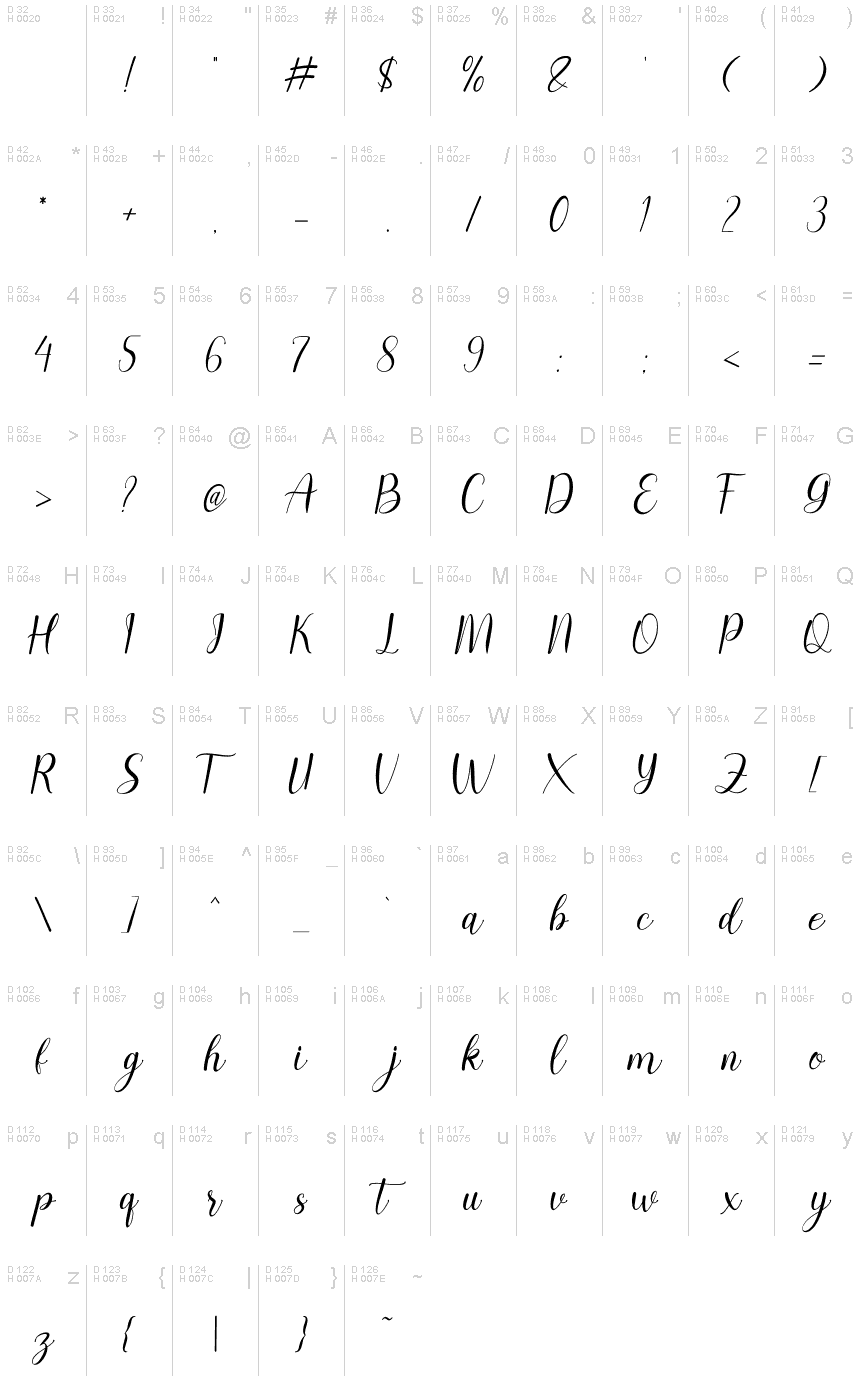
clarista
Clarista is a beautiful calligraphy font designed by WinType and Winarko. Its light weight gives it an elegant, airy feel perfect for adding a touch of sophistication to any project. Clarista is the perfect choice for wedding invitations, logos, and other creative projects.